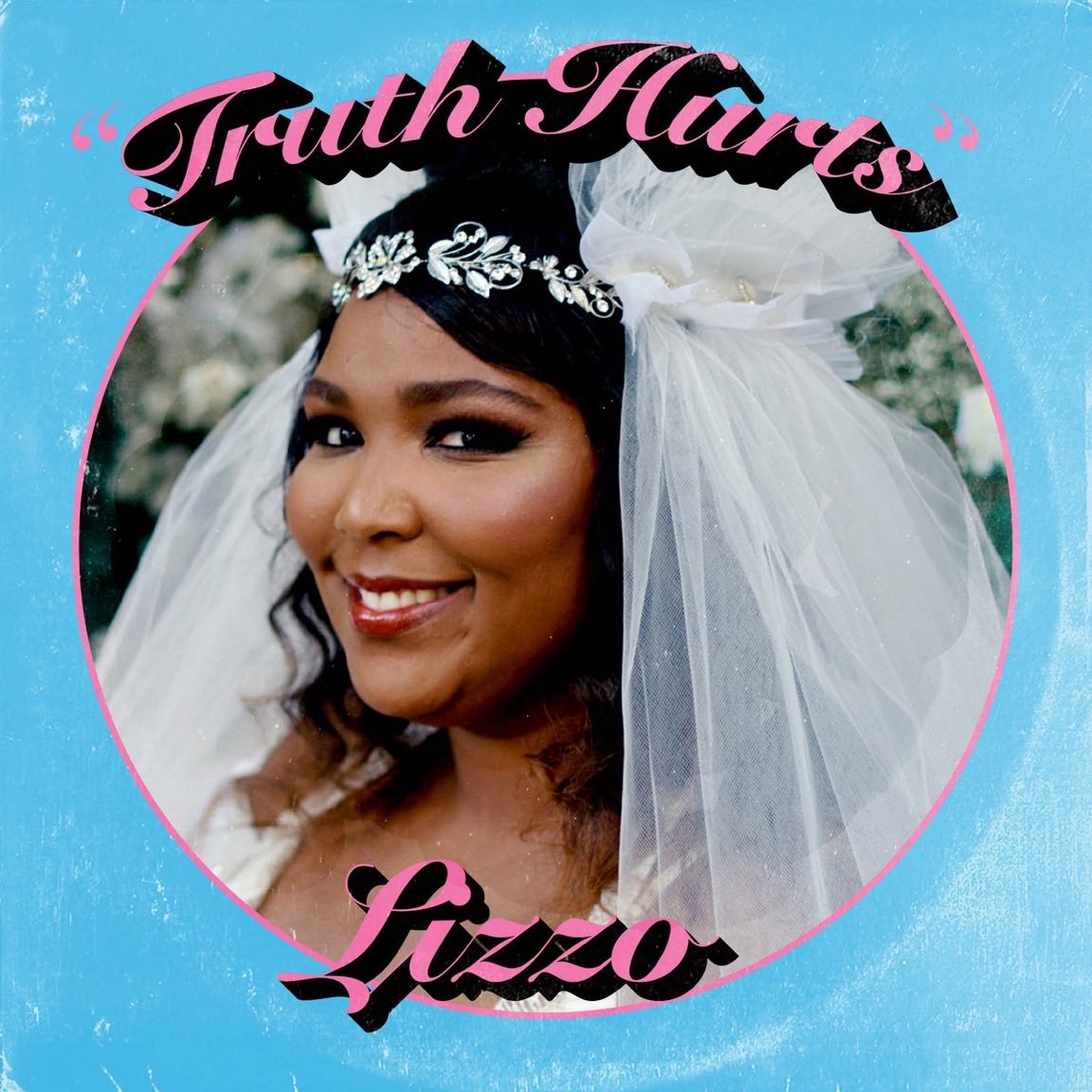
Truth Hurts Font
Fonts in Use“Truth Hurts” was featured as a bonus track on the deluxe edition of Lizzo's third studio album, Cuz I Love You, which was released in 2019.
The cover art for the release features the title of the song in quotation marks, written in Snell Roundhand Black font with a shadow effect. This typeface was created by Matthew Carter in 1965 based on the handwriting of Charles Snell, a 17th-century writing master, and has since been expanded with two additional weights.